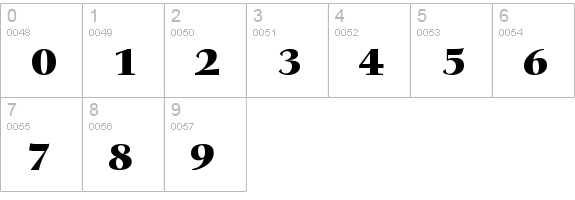
00230 Font Details
The 00230 font is a stylish and modern typeface that exudes elegance and sophistication. With its sleek lines and contemporary design, this font is perfect for creating eye-catching designs and professional-looking projects. Whether you're working on a branding project, marketing materials, or simply want to add a touch of flair to your personal creations, the 00230 font is sure to impress. What's even better is that the 00230 font is completely free to download at FontsMarket.com. Yes, you heard that right - you can access this incredible font at no cost at all! So why wait? Head over to FontsMarket.com now and elevate your designs with the stunning 00230 font.